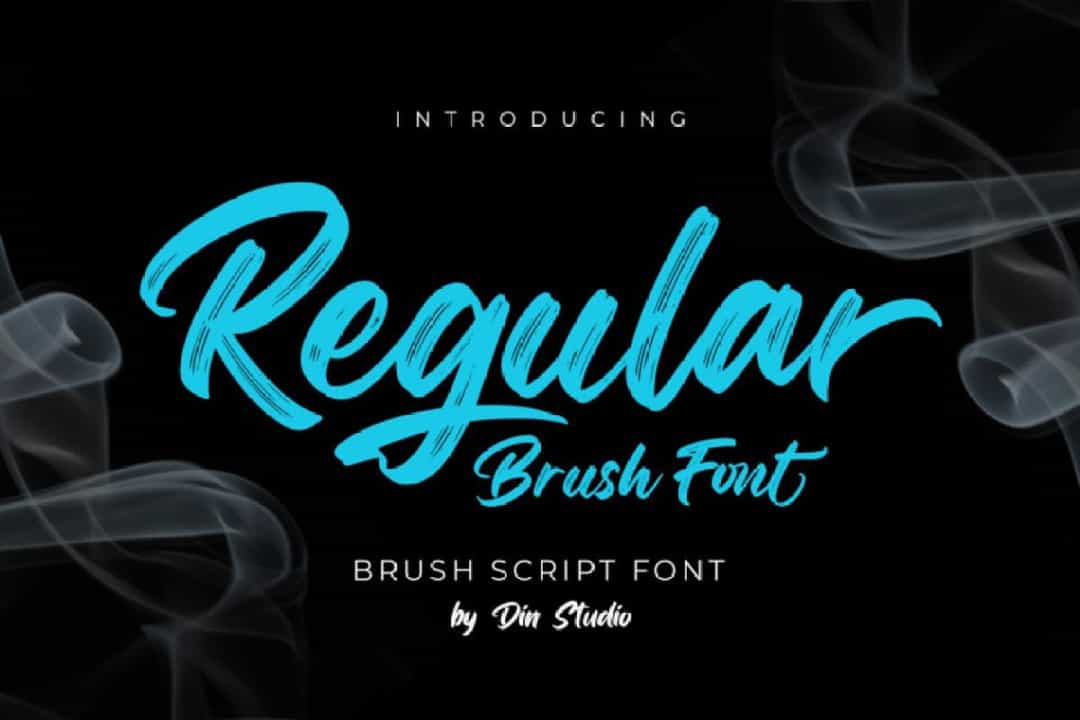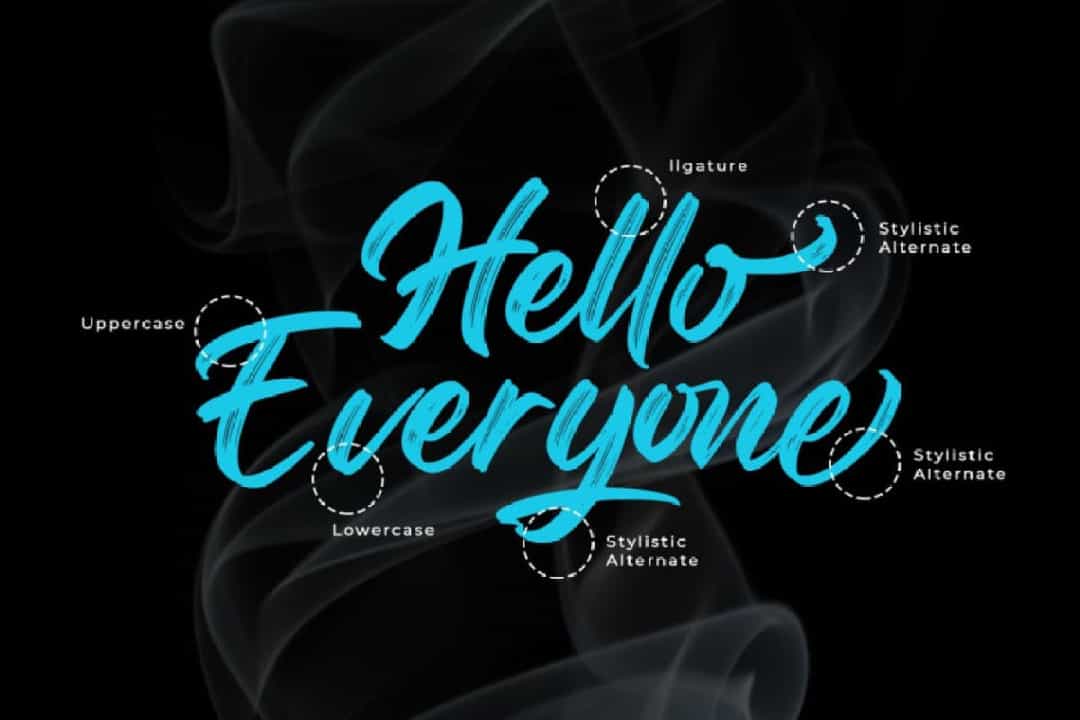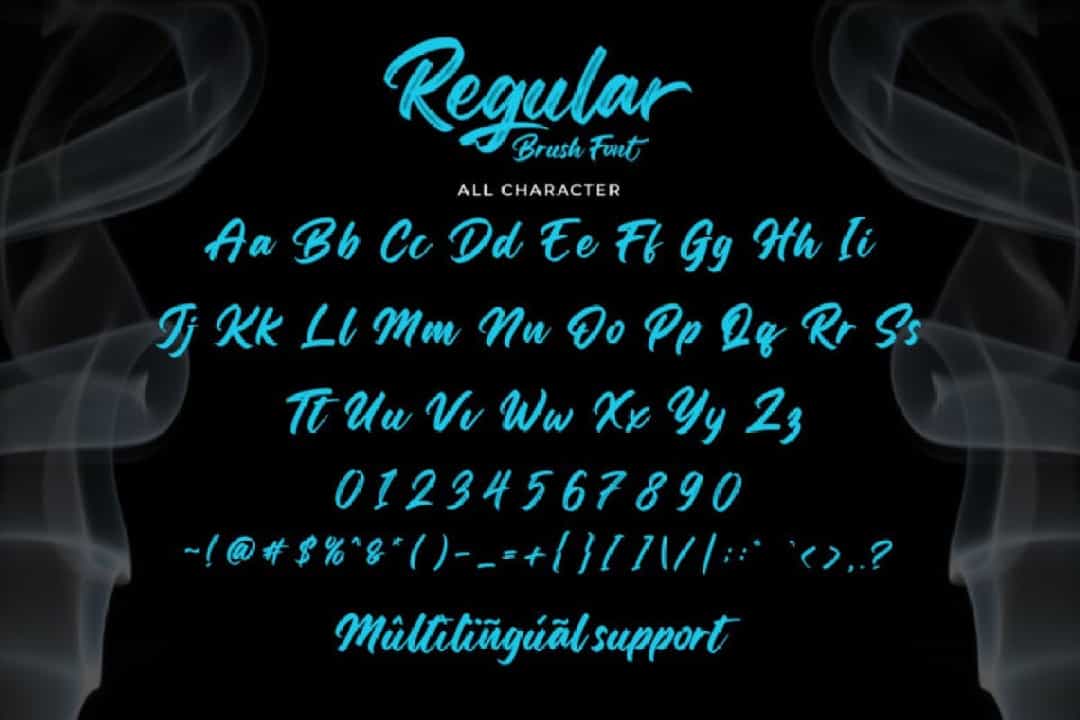
Regular is a pretty handwritten font that will help to enliven any project and make it more creative. It is an ideal choice for emblem or badges of businesses, packages, labels, posters’ headlines, T-shirt, products, greeting cards, and Wedding invitations.